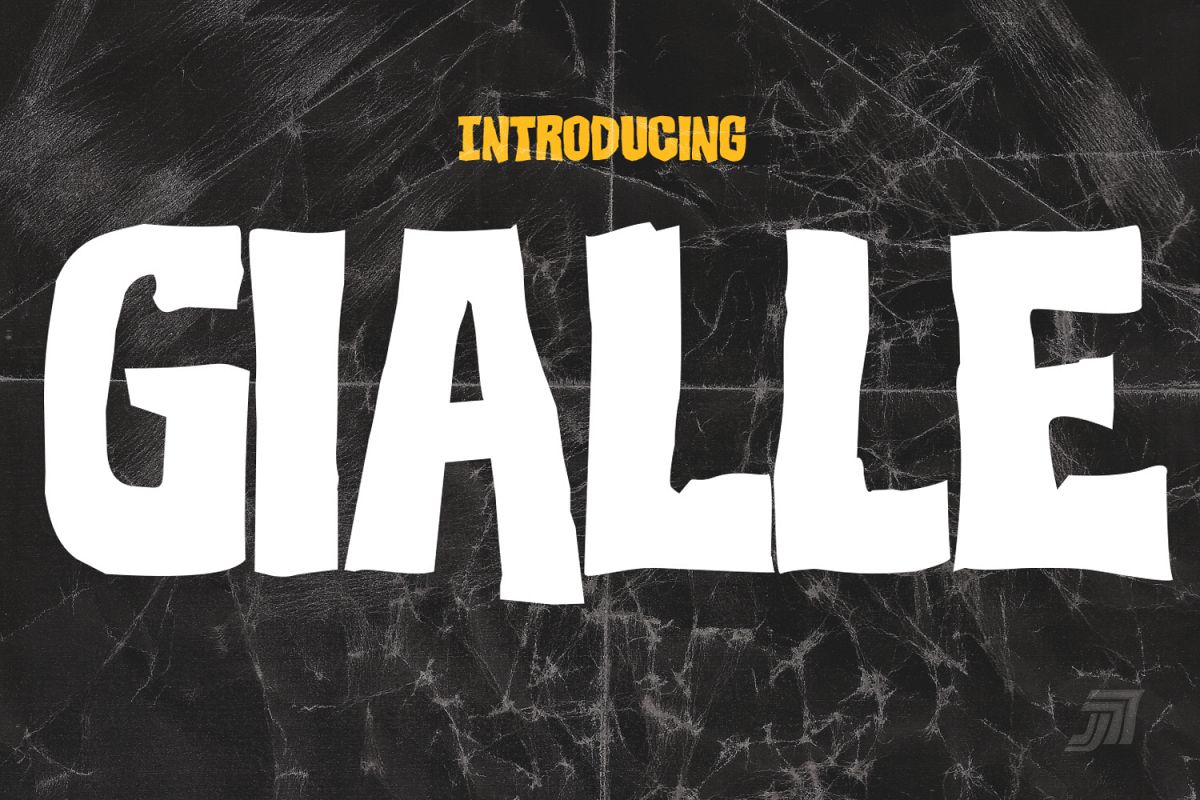
Gialle
GIALLE is a true type hommage to the golden era european cinema from the mid seventies. Gialli was a particular italian style movie, in part introduced by maestri like Dario Argento, Lucio Fulci among over.
Gialle will nicely suited B-movie posters or album sleeves, or will stuned your cards for Halloween party flyers for example.
3 weights Narrow, Regular and Wide, with oblique for each one.
Gialle family comes with a full latin set of 300 glyphes (upper cases only) with some alternates and skulls, part greek also. Updates (included) will come in a near future.